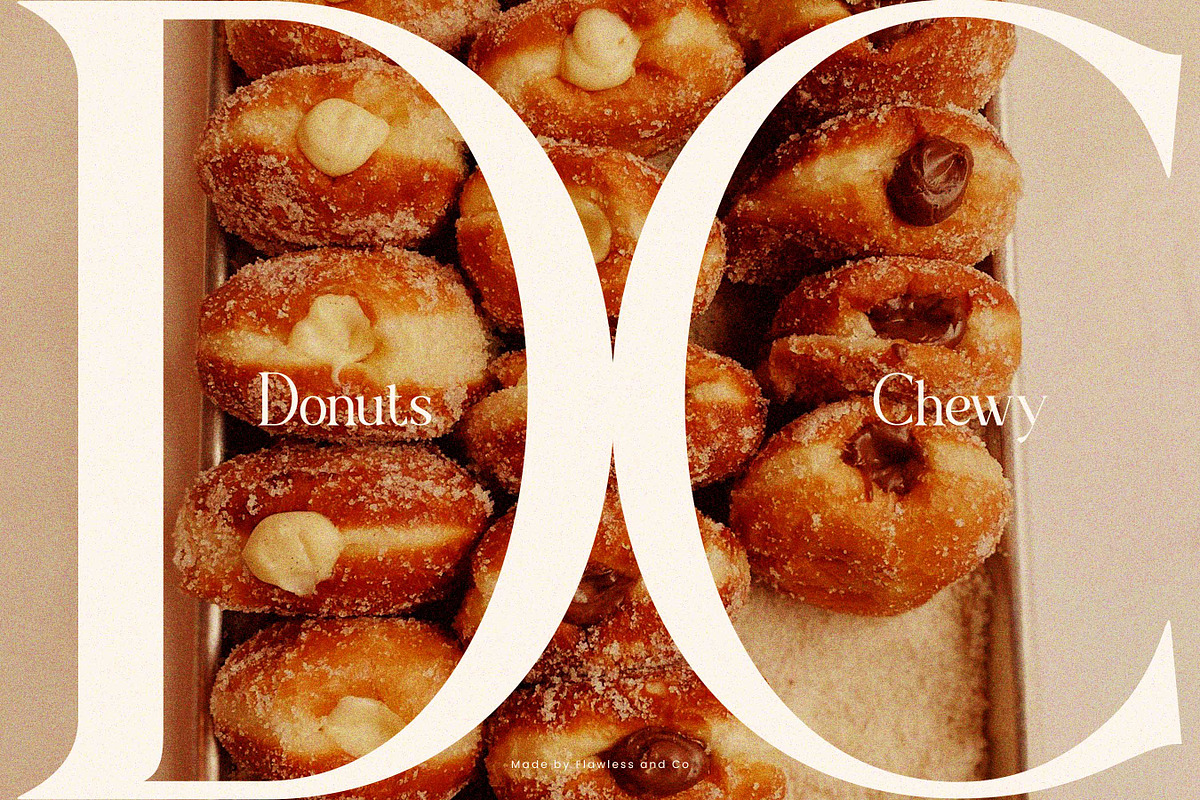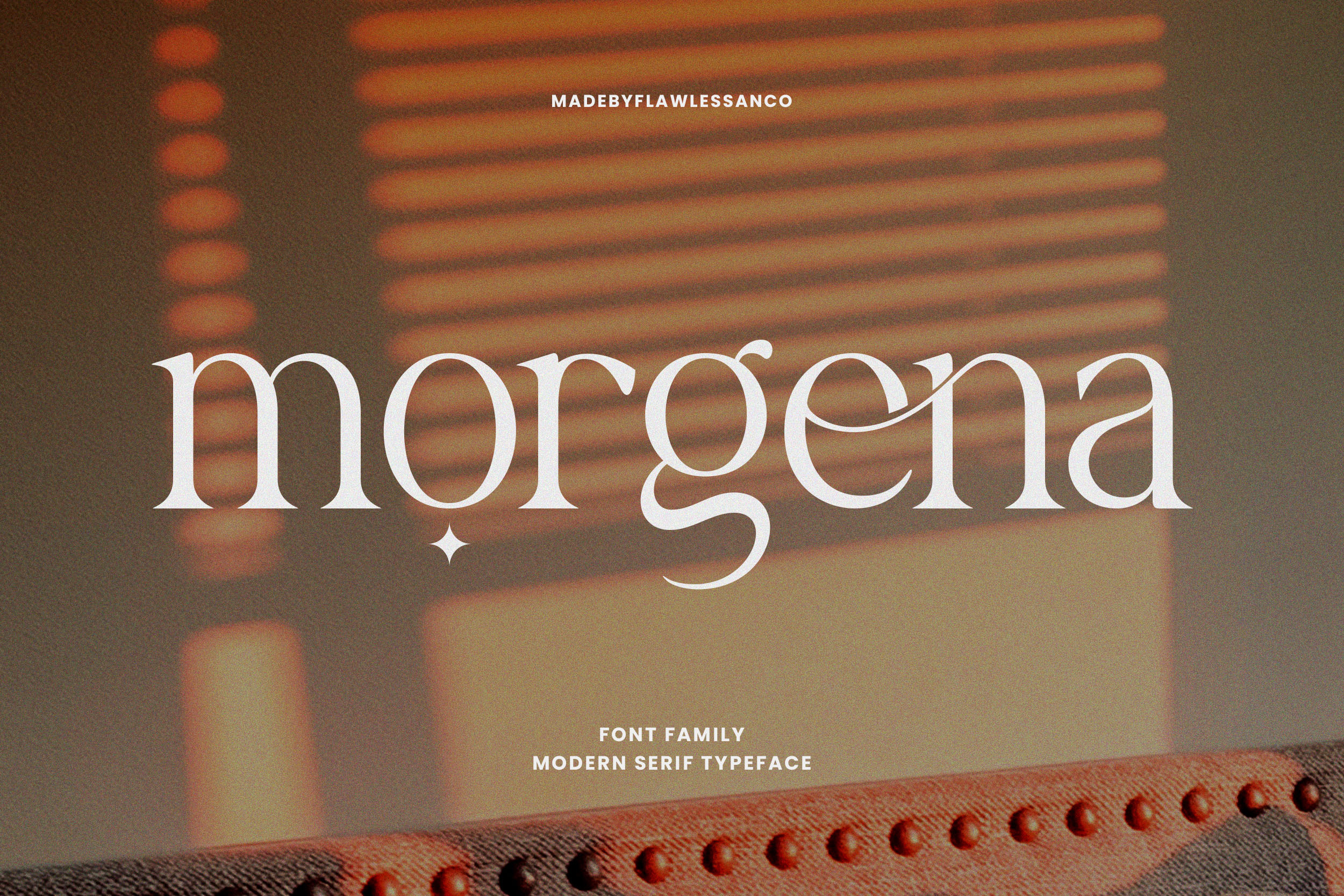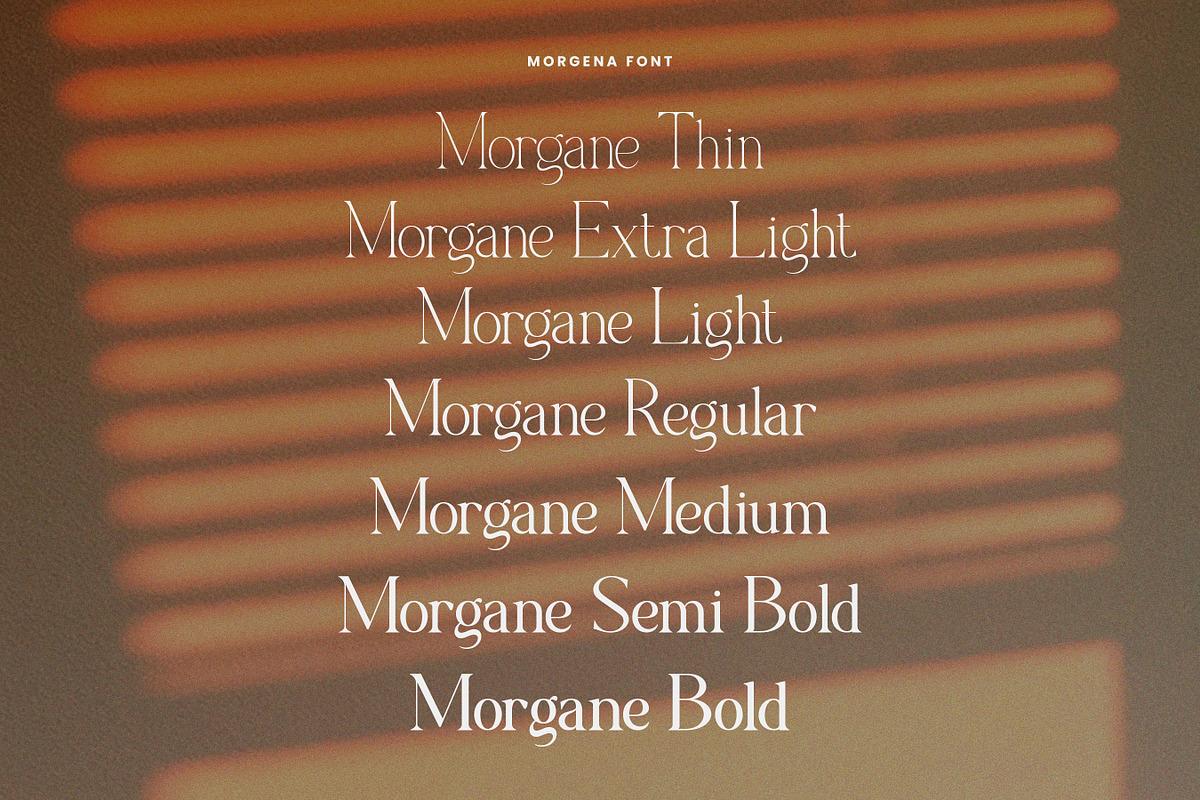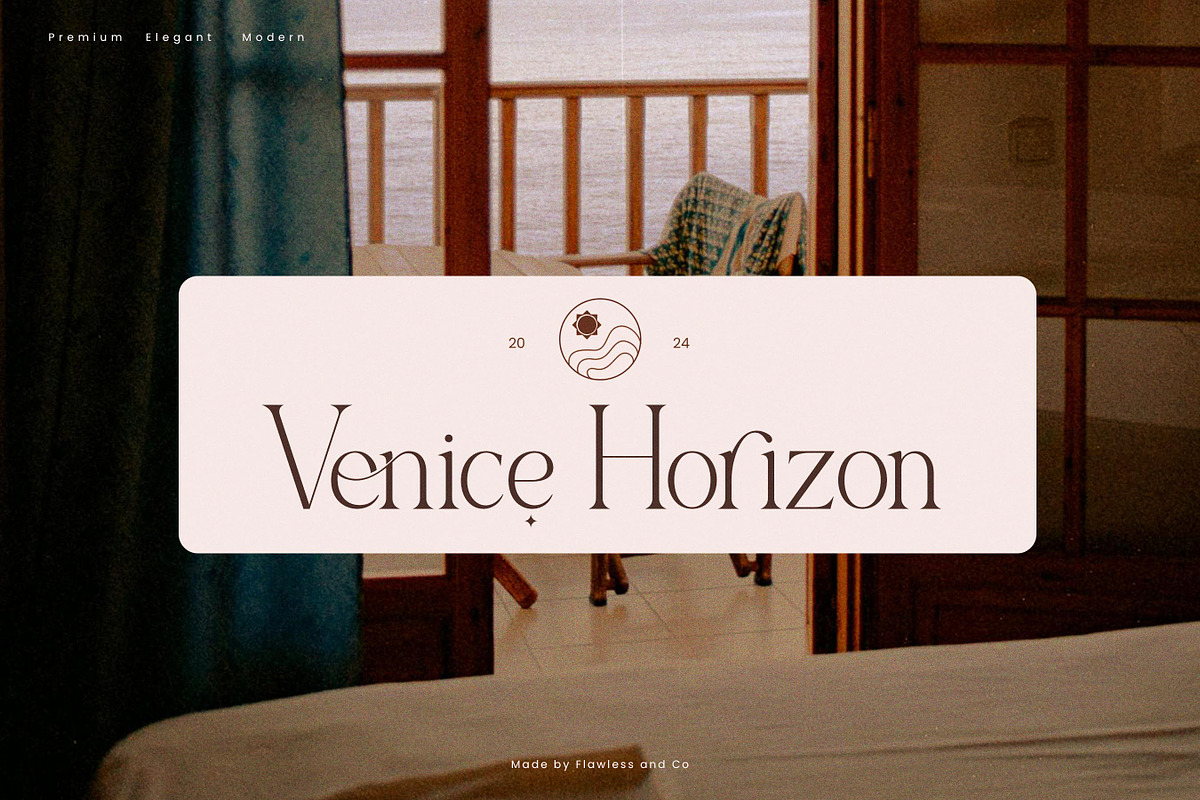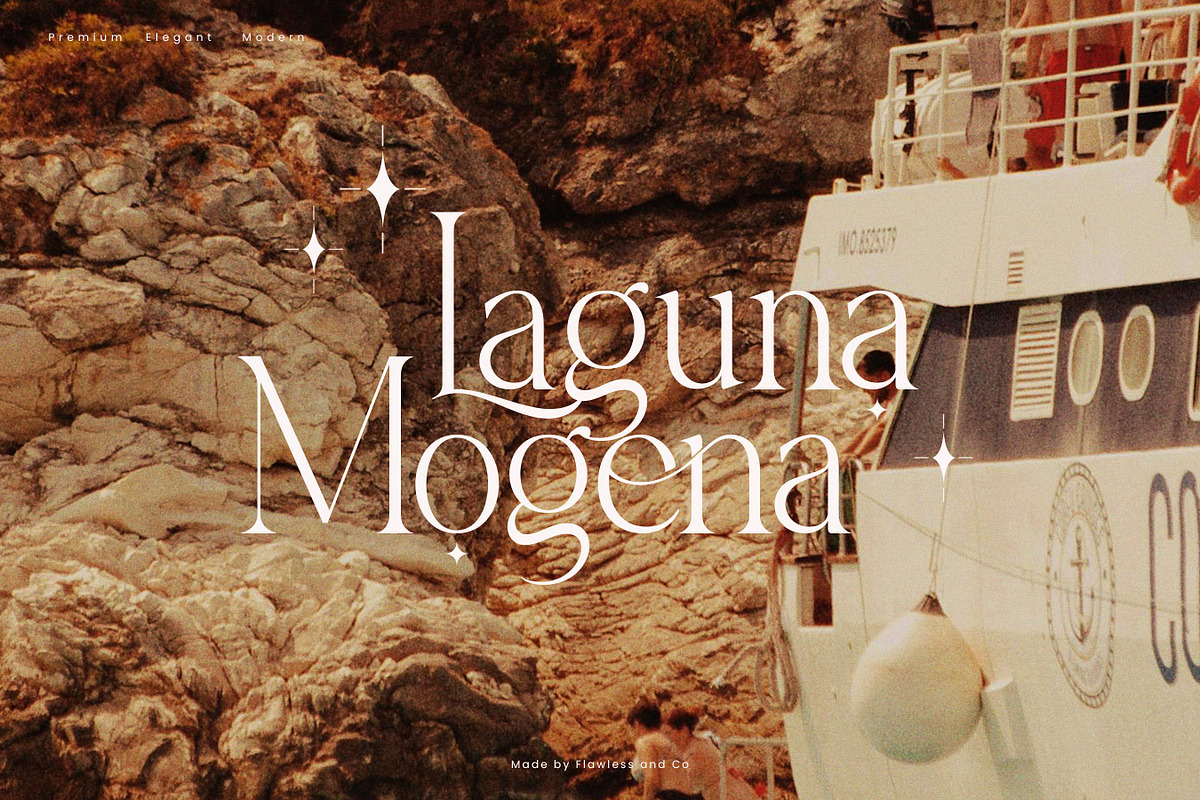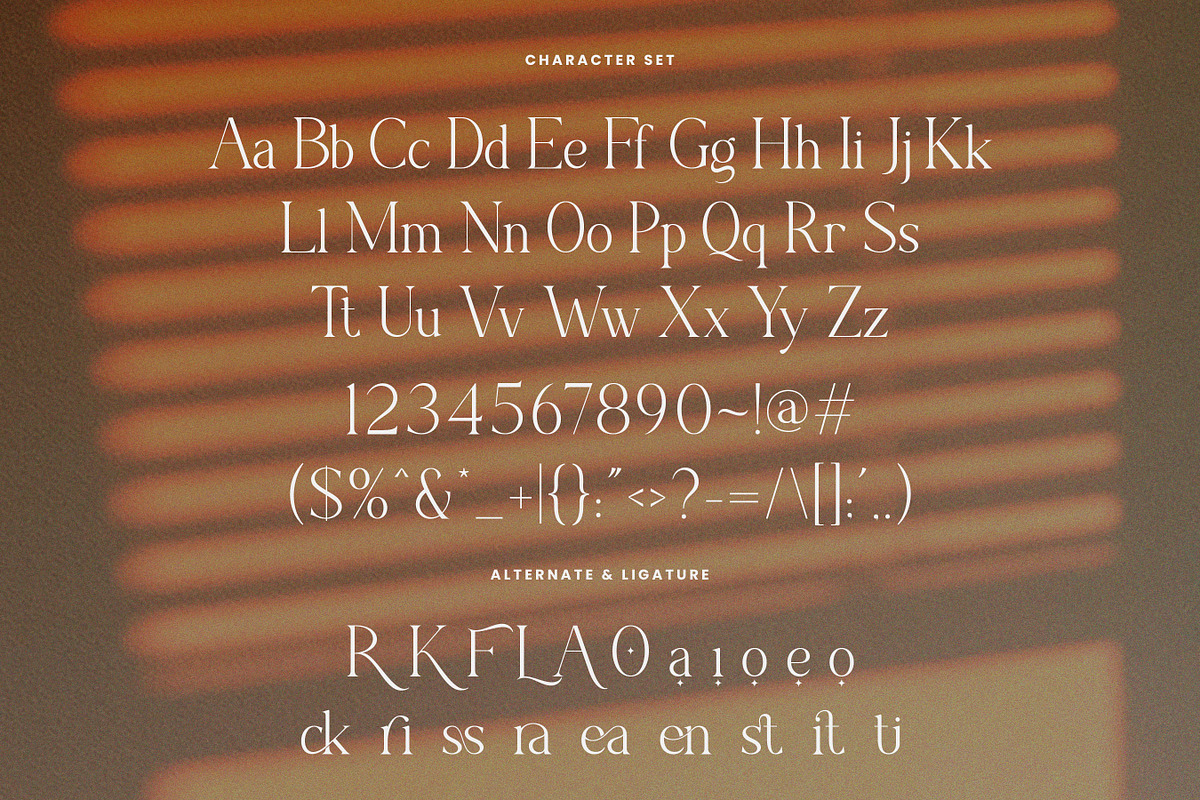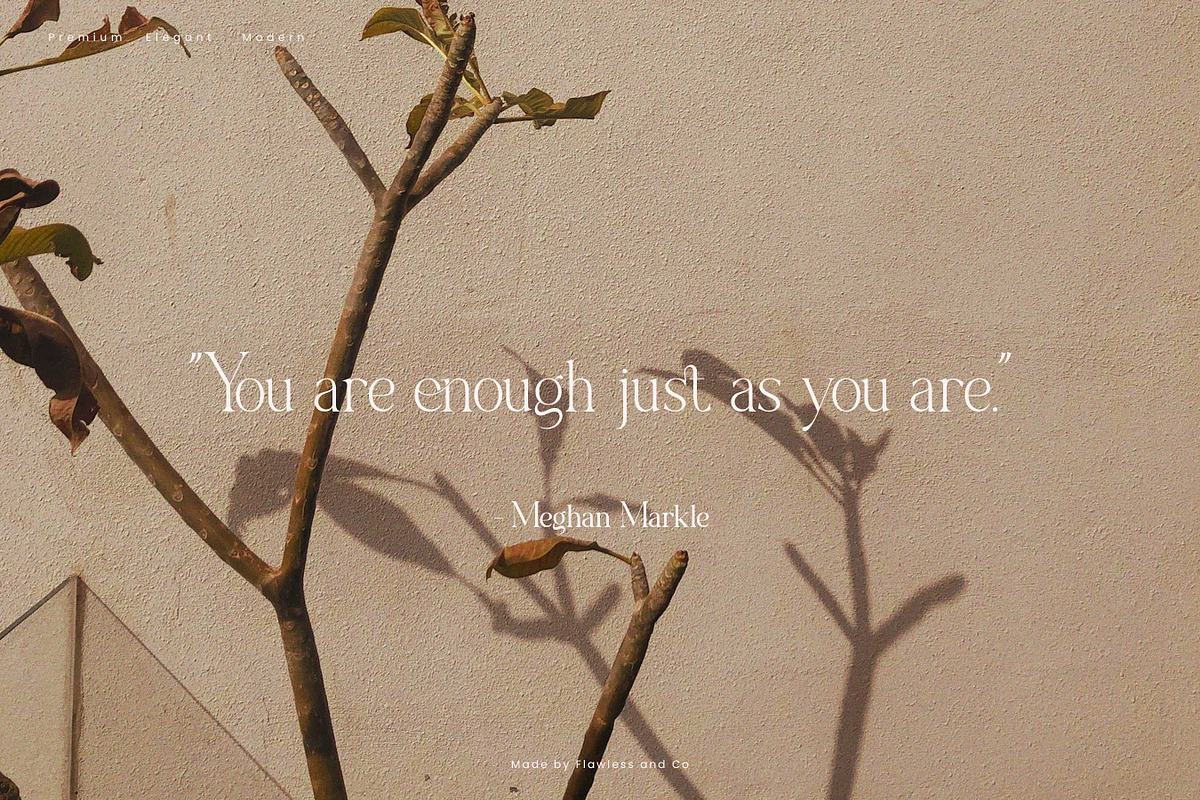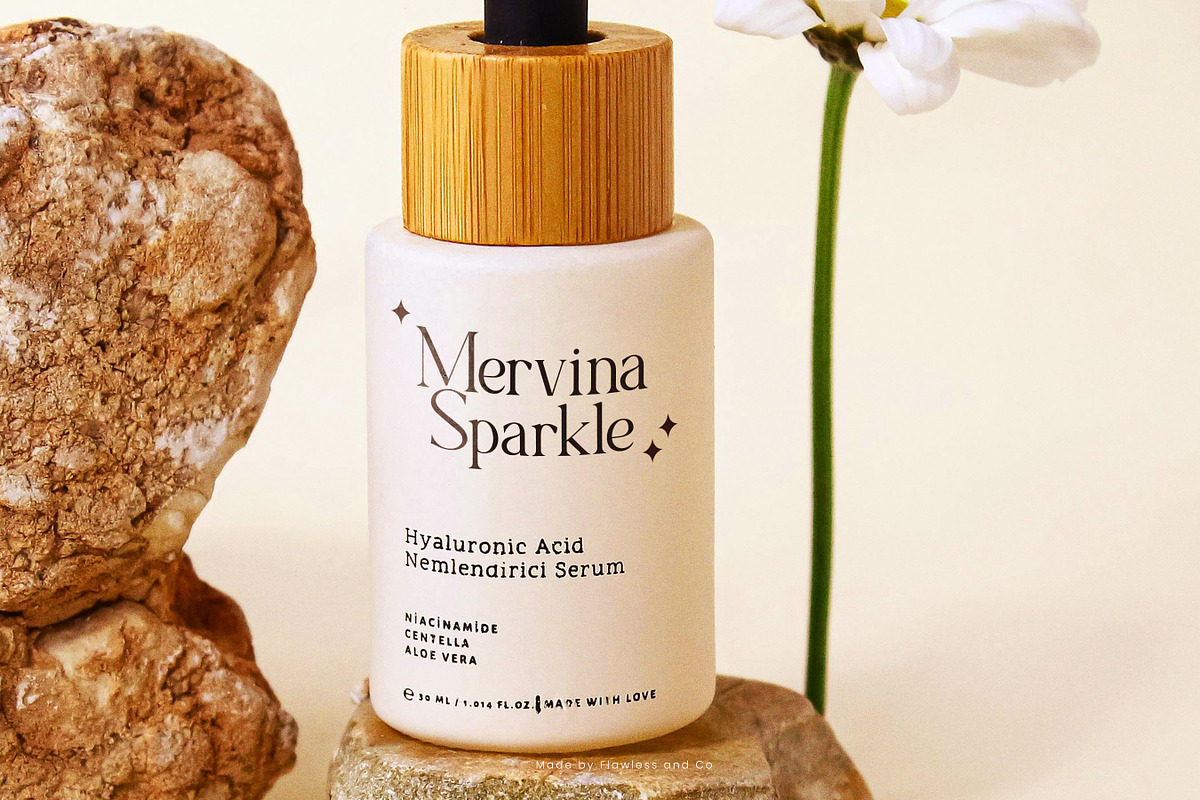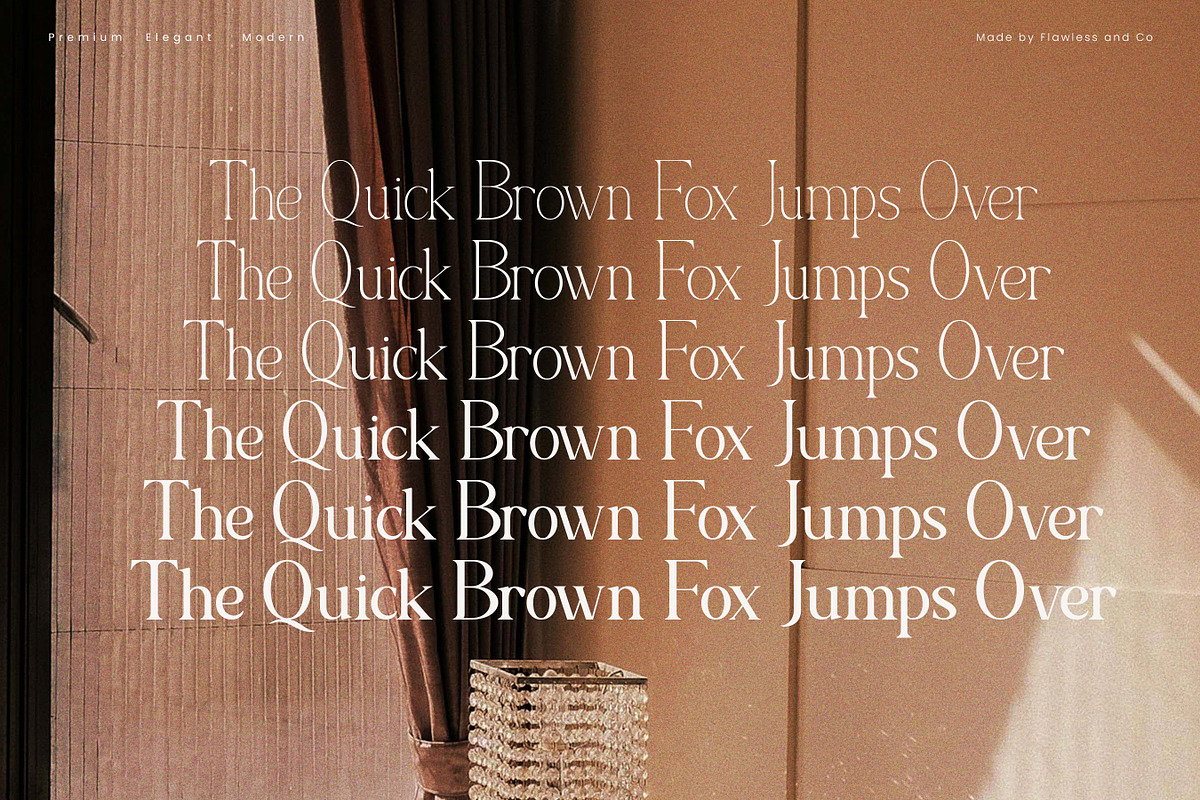
Morgena - Modern Serif Family Font
Introducing "Morgena Family Font". Dive into the diverse world of typography with "Morgena", a comprehensive typeface that goes beyond conventional limits. This font family is a symphony of styles, offering Thin, Extra Light, Light, Regular, Medium, Semi-Bold, and Bold variants, allowing you to craft designs that resonate with precision and personality.
Multilingual Uppercase alphabet A-Z Lowercase alphabet a-z Alternate Character Numbers 0-9 Some punctuation